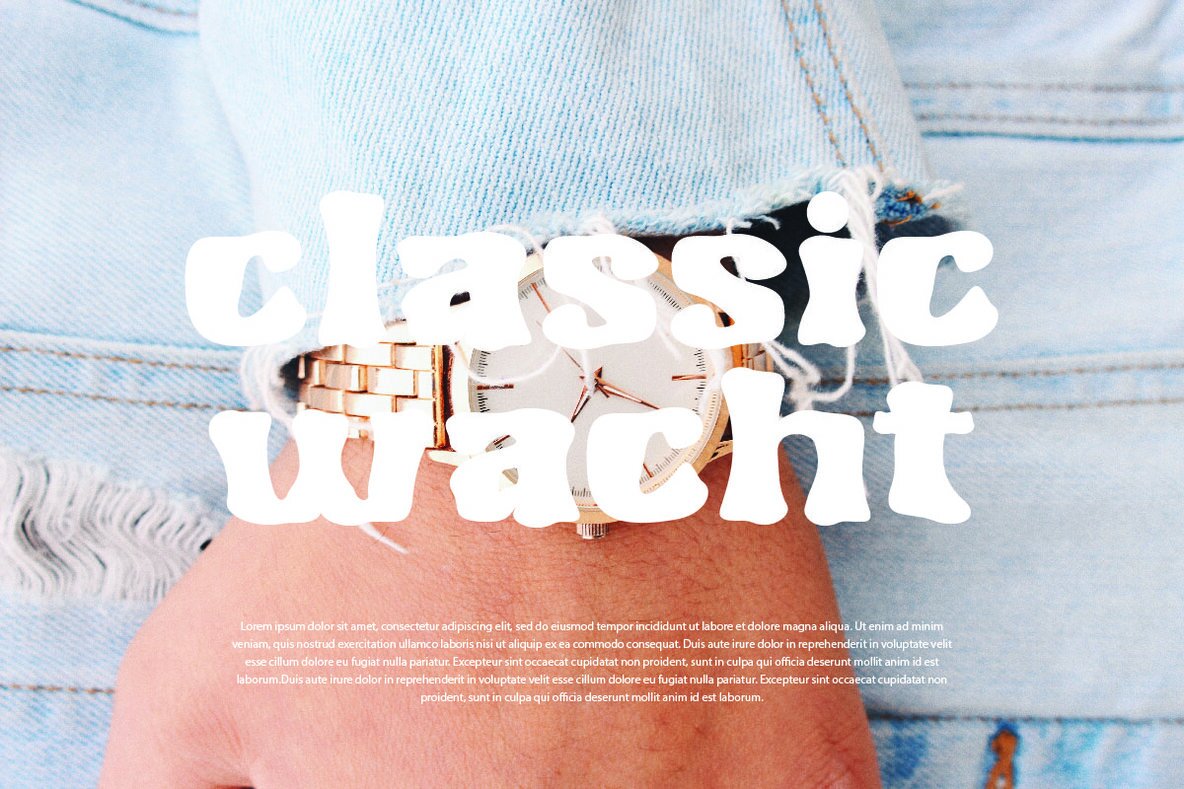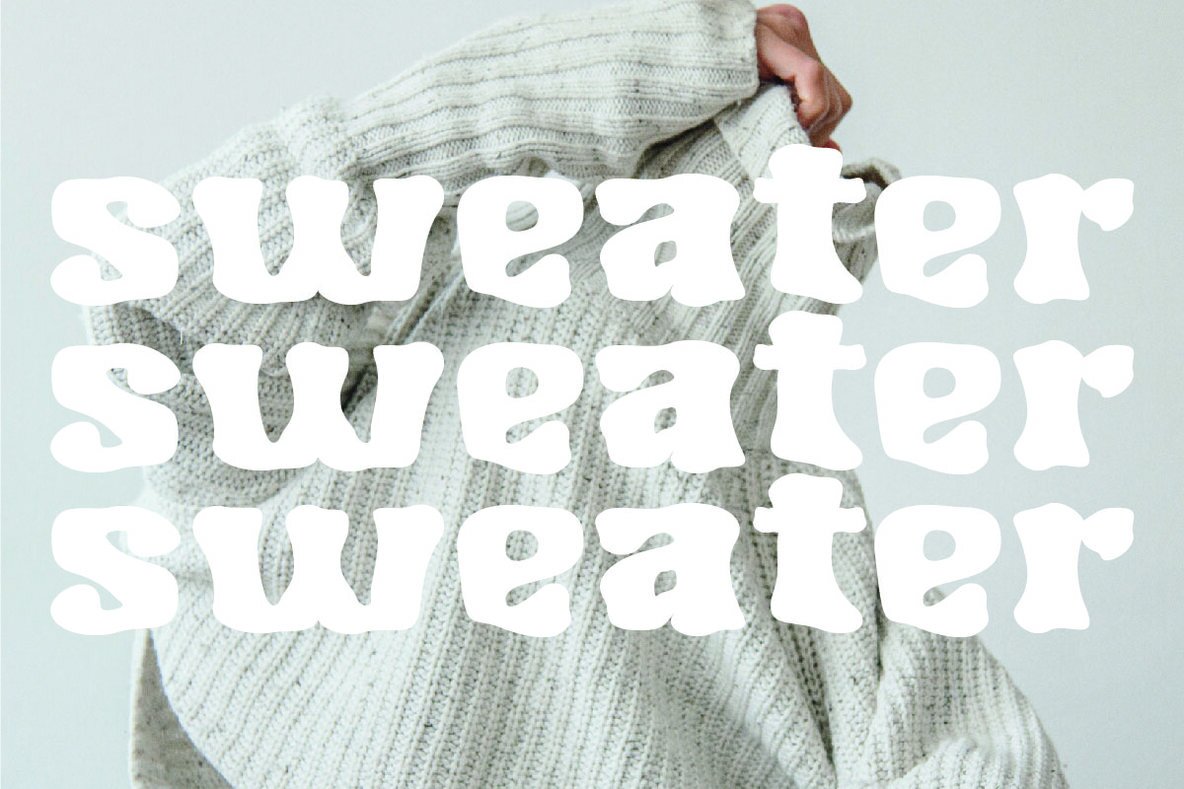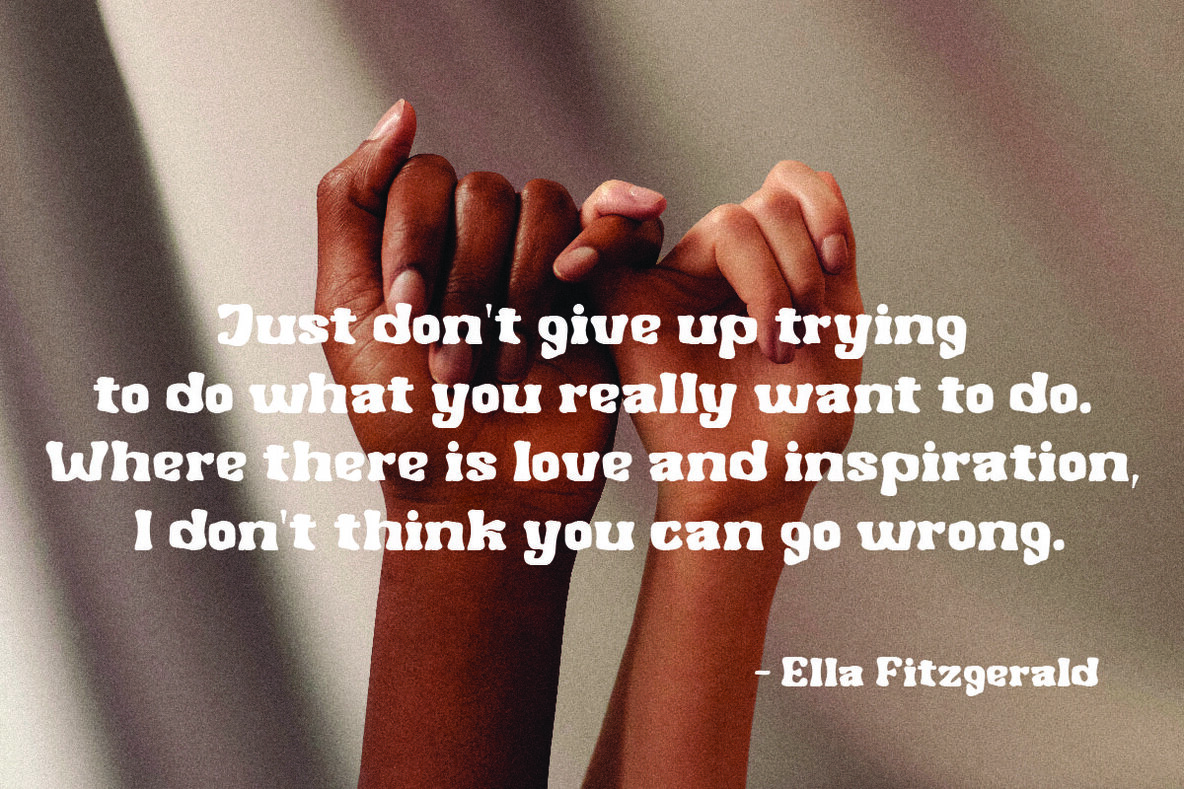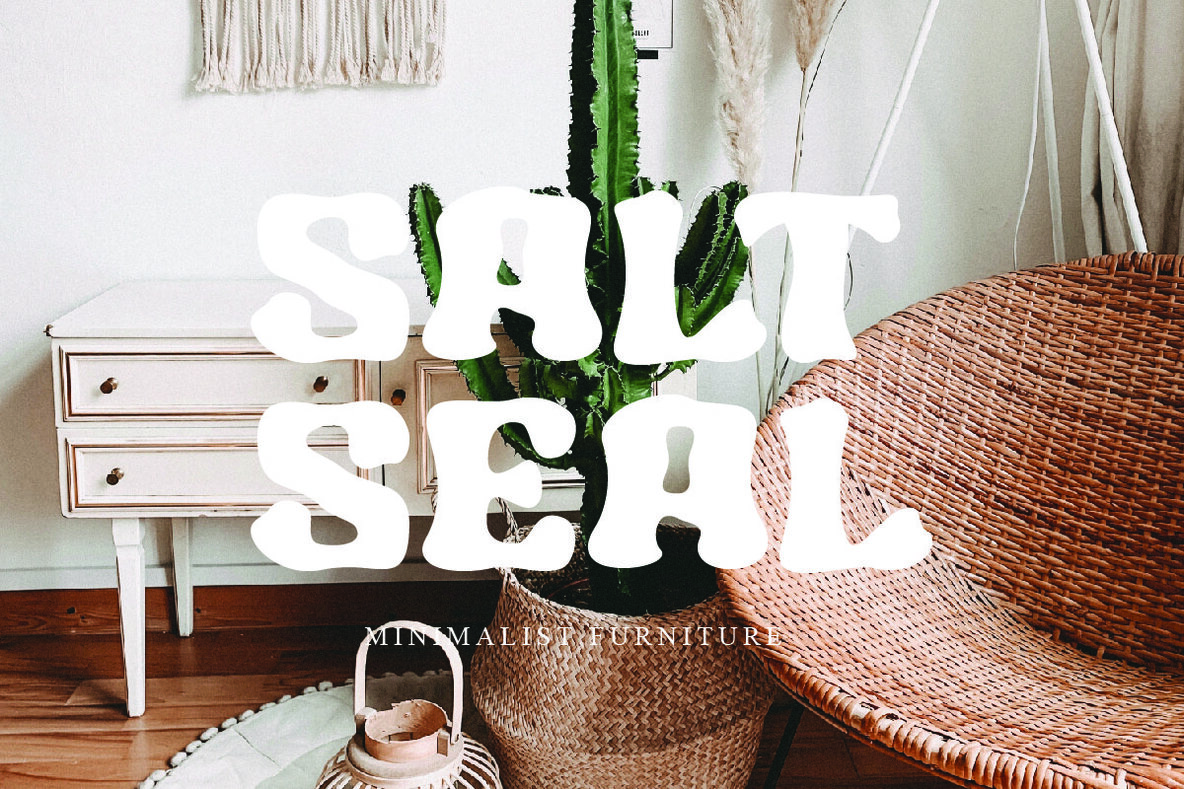
Nebula is a modern display font that captivates with its futuristic design and striking aesthetics. Created with a combination of geometric elements and artistic touches, Nebula features sharp lines and smooth contours, exuding an elegant and contemporary impression. When you encounter Nebula, your eyes are immediately drawn to its unique characteristics. This font combines creative geometric shapes with innovative typographic elements, creating an outstanding and attention-grabbing appearance. Each letter in Nebula is meticulously crafted, showcasing a perfect blend of clarity and creativity. The strength of Nebula lies in its perfect balance between boldness and sophistication. With various weights and thicknesses, this font allows you to express messages in an engaging and impressive manner. In other words, Nebula has the ability to emanate a distinct power and impression for every design project you undertake. Moreover, Nebula is versatile and adaptable to various design contexts. Whether you use it in advertisements, posters, logos, or other media, this font will deliver exceptional visual appeal. Its clarity and legibility ensure that your intended message remains clear, while its unique character adds a captivating and distinctive touch. Features: